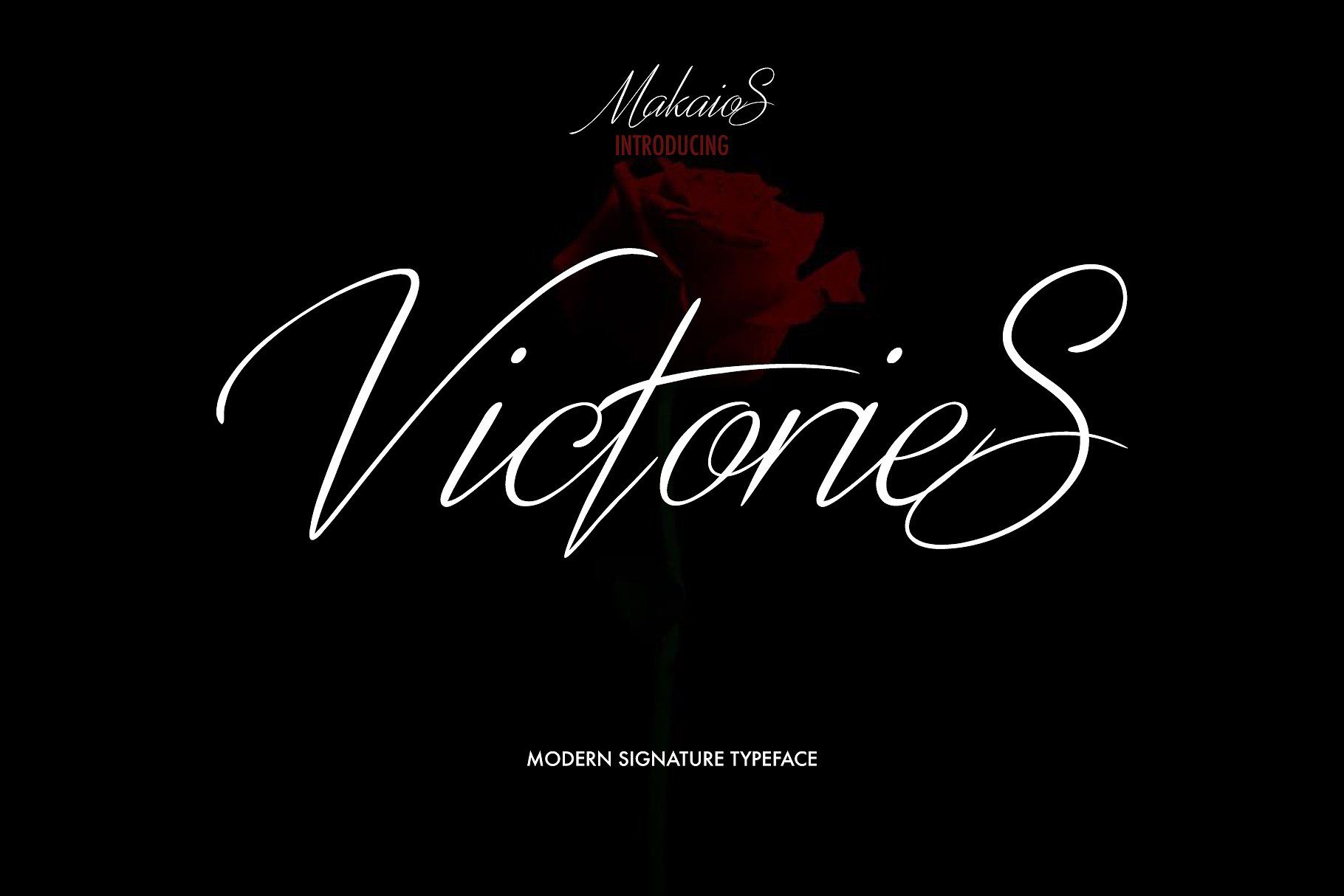
Victories Signature Font
Introducing Victories Font! a chill, handwritten font with a handmade touch. Victories is perfect for branding projects, homeware designs, product packaging – or simply as a stylish text overlay to any background image.